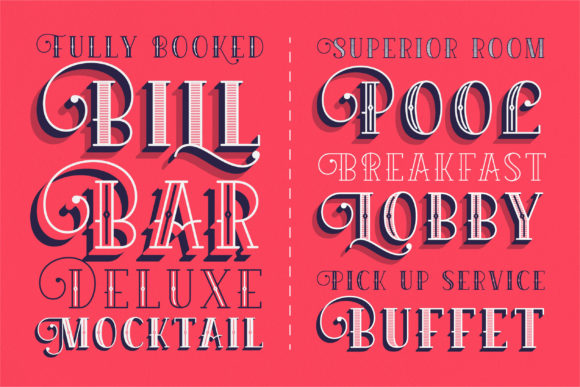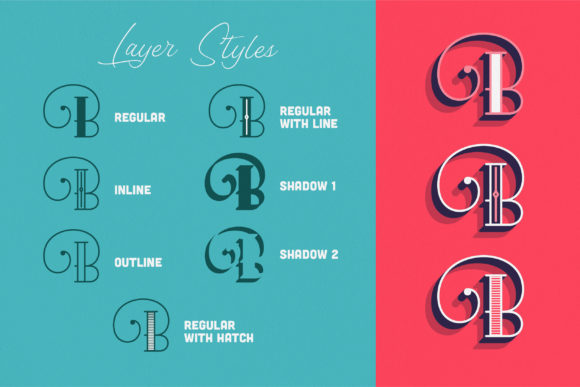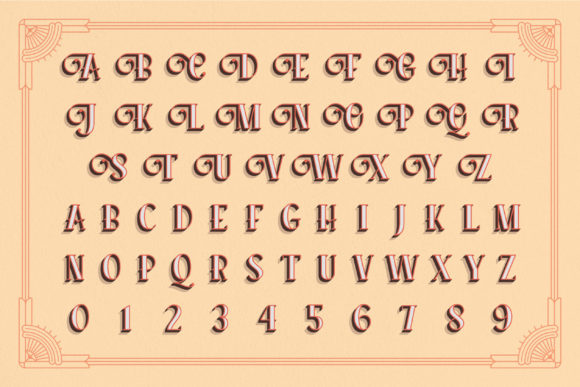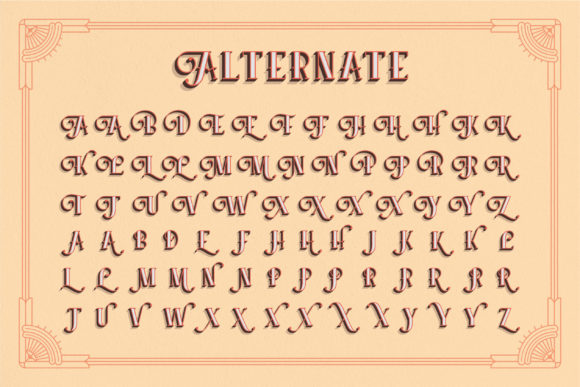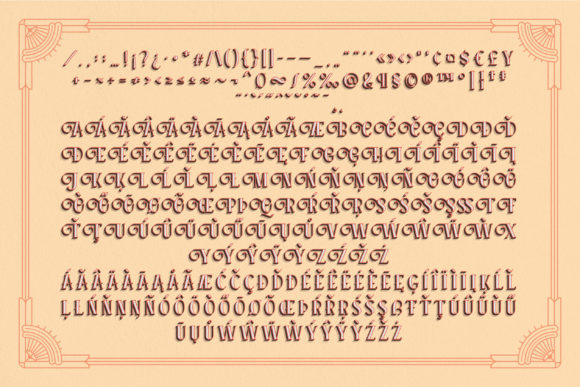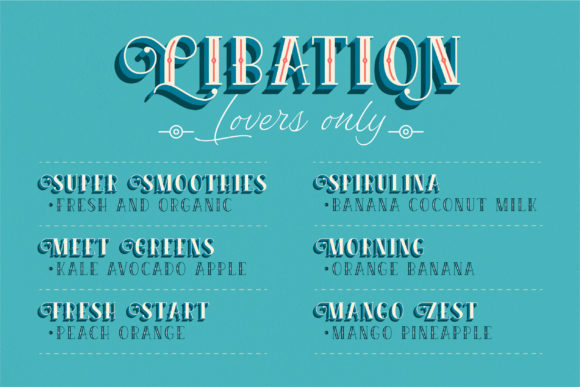
Discover the Quirky Charm of Beijin Font: A Unique Display Font for Creative Projects
Are you tired of using the same old fonts for your creative projects? Look no further than Beijin Font, a unique and interesting display font that’s sure to add a touch of personality to your designs. A little bit quirky, Beijin Font is a great choice for a wide variety of contexts, from crafting and DIY projects to graphic design and digital art.
What Makes Beijin Font So Special?
Beijin Font stands out from the crowd with its distinctive, hand-crafted aesthetic. Each letter is carefully designed to be visually appealing and highly legible, making it perfect for use in titles, headings, and other display text. The font’s quirky charm is sure to capture the attention of your audience and leave a lasting impression.
Key Features of Beijin Font
- Unique and quirky design: Beijin Font boasts a one-of-a-kind design that’s sure to set your project apart from the rest.
- Highly legible: Despite its creative flair, Beijin Font remains highly legible, even at smaller sizes.
- Versatile: Beijin Font is suitable for use in a wide range of contexts, from digital designs to print materials.
- Easily customizable: With its clear and simple structure, Beijin Font is easy to modify and customize to suit your project’s needs.
Beijin Font is a fantastic choice for any creative project that requires a dash of personality and flair. Here are just a few ideas for how you can use Beijin Font:
- Crafting and DIY projects: Add a touch of whimsy to your crafting and DIY projects with Beijin Font’s playful design.
- Graphic design: Use Beijin Font to create eye-catching titles and headings for your graphic design projects.
- Digital art: Incorporate Beijin Font into your digital art to add an extra layer of visual interest.
- Signage and display text: Beijin Font is perfect for use in signage and display text, where its quirky charm can really shine.
Tips for Using Beijin Font
To get the most out of Beijin Font, here are a few tips to keep in mind:
- Use it sparingly: Beijin Font’s unique design can be attention-grabbing, so use it sparingly to avoid overwhelming your design.
- Experiment with colors and textures: Beijin Font looks great with a variety of colors and textures, so don’t be afraid to experiment and find the perfect combination for your project.
- Pair it with complementary fonts: Beijin Font pairs well with a range of other fonts, so try combining it with complementary fonts to create visual interest.
Beijin Font is a unique and interesting display font that’s sure to add a touch of personality to your creative projects. With its quirky charm, highly legible design, and versatility, Beijin Font is a great choice for designers, crafters, and artists looking to stand out from the crowd. So why not give Beijin Font a try and see how it can elevate your designs?
Whether you’re working on a crafting project, graphic design, or digital art, Beijin Font is a fantastic choice. Its distinctive design and highly legible structure make it perfect for use in titles, headings, and other display text. So go ahead, get creative, and see what amazing things you can do with Beijin Font!